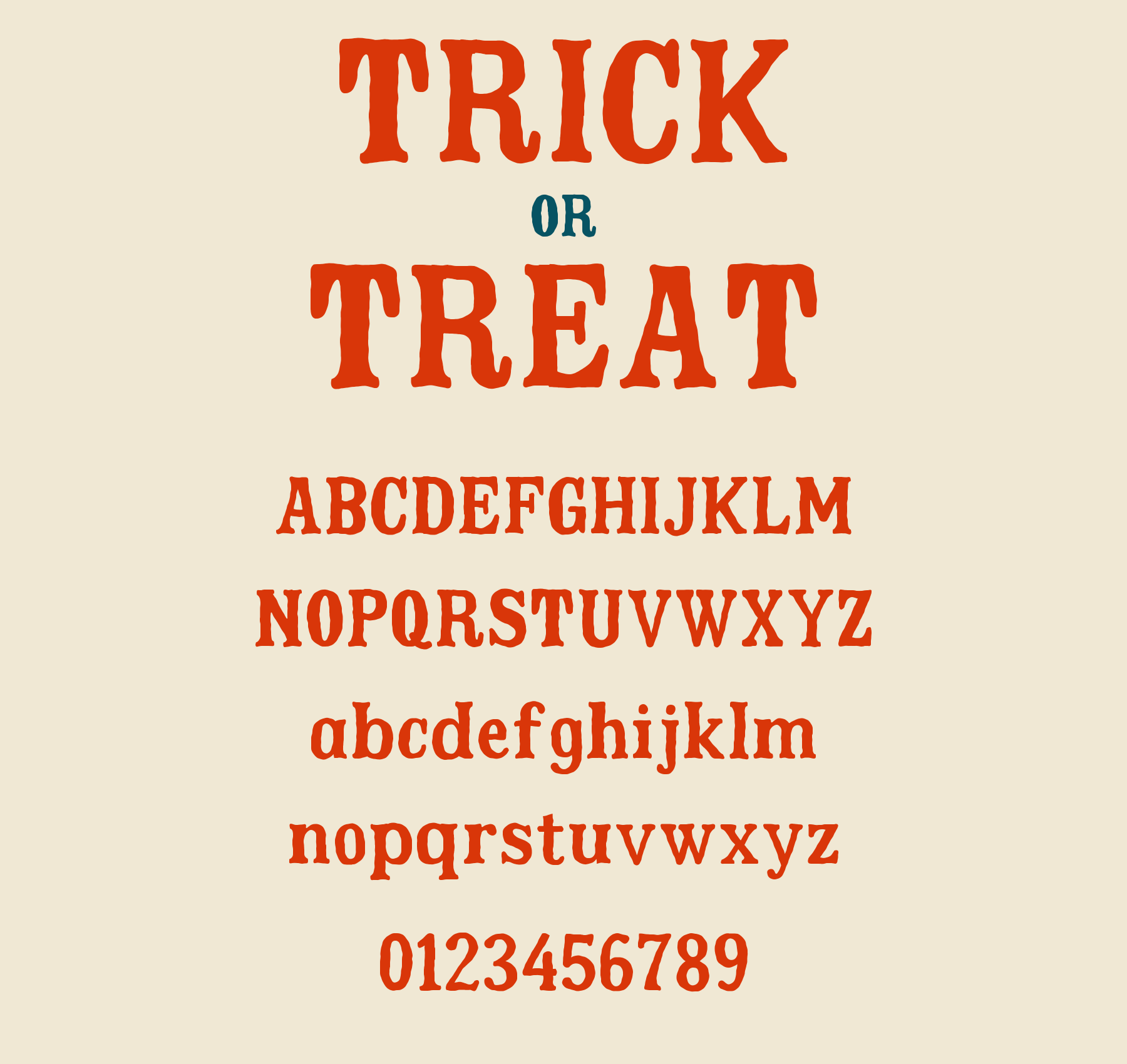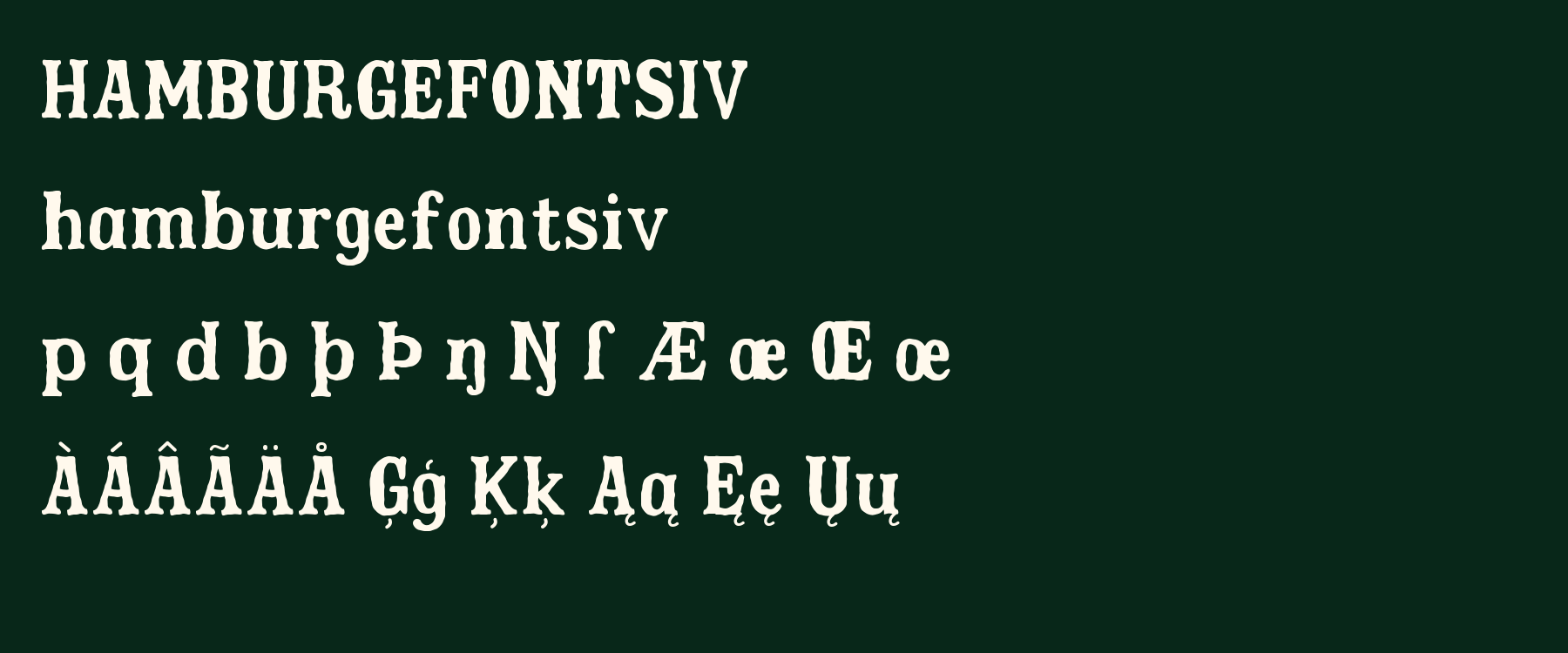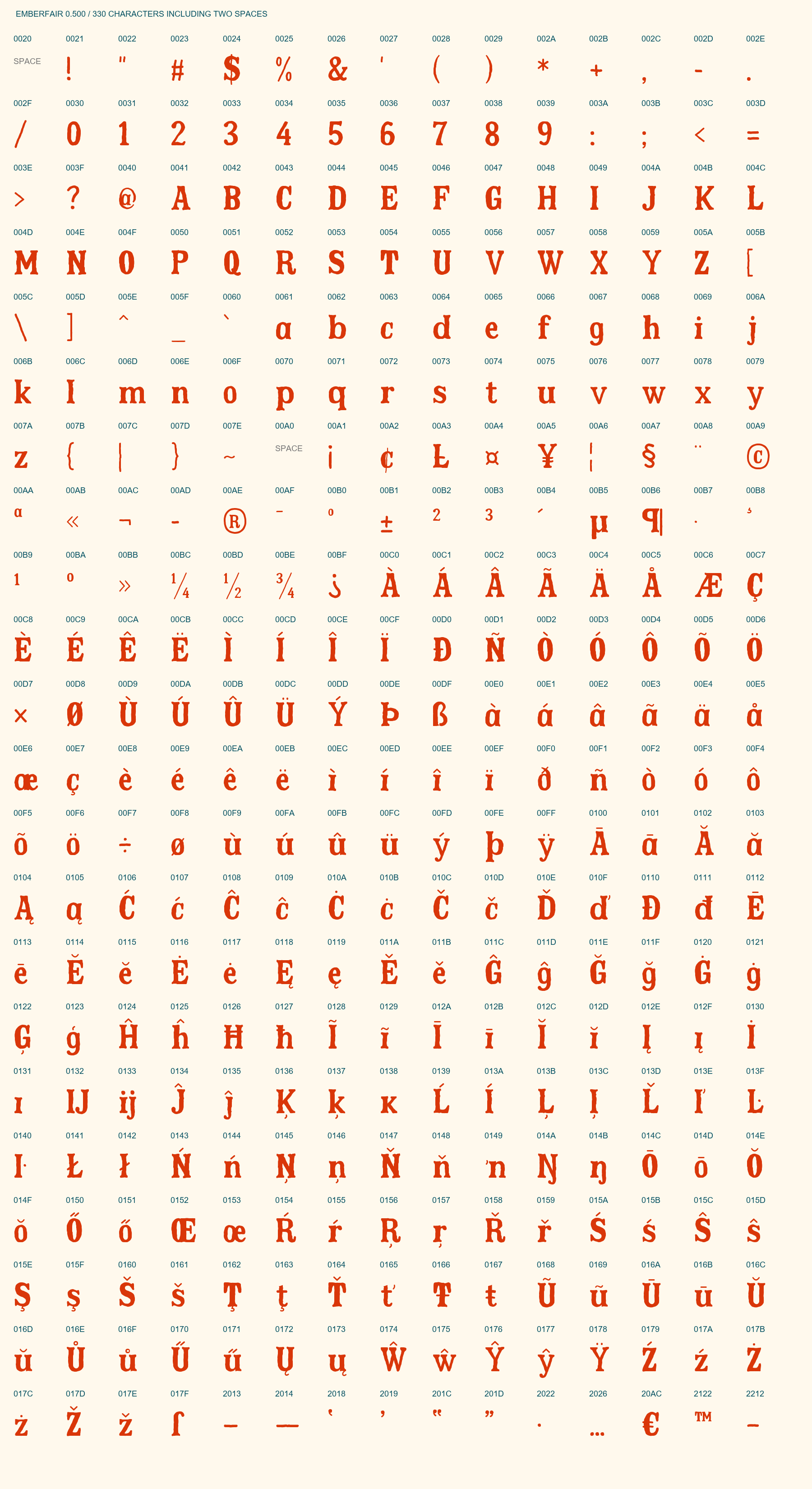
Emberfair painted serif: Trick or Treat, uppercase, lowercase and numbers.
Painted letters for playful autumn posters. Emberfair combines heavy stems, softly rounded slab serifs, curled terminals and gently irregular painted outlines. Regular 0.500 includes 330 encoded characters, counting two spaces: uppercase, lowercase, numbers, Latin-1, Latin Extended-A and selected symbols. Refined bowls, connected ligatures, accented letters and rounded punctuation. Designed for headlines and posters at 96px and above; not intended for small body text. Hangul and independent combining marks are not included. Free under the SIL Open Font License 1.1.